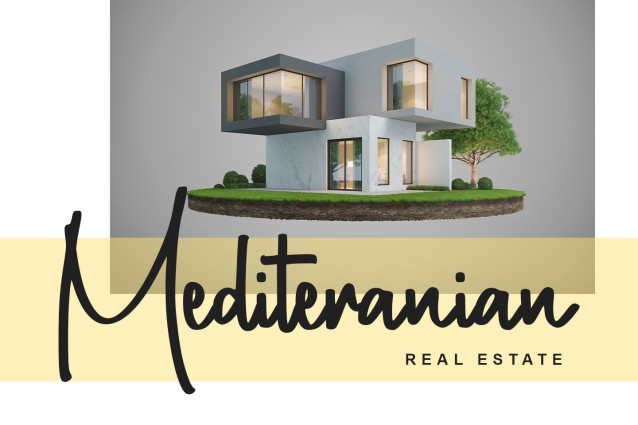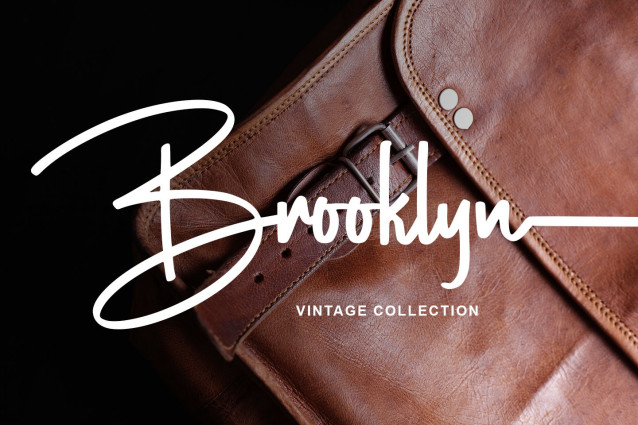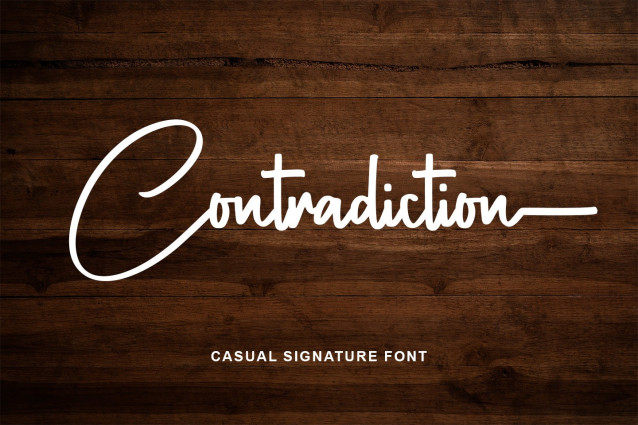
Contradiction Font
CONTRADICTION is a naturally strong & bold signature font. It is great for branding, logos, t-shirt designs, tote bag designs, cards, banners, social media, and more.